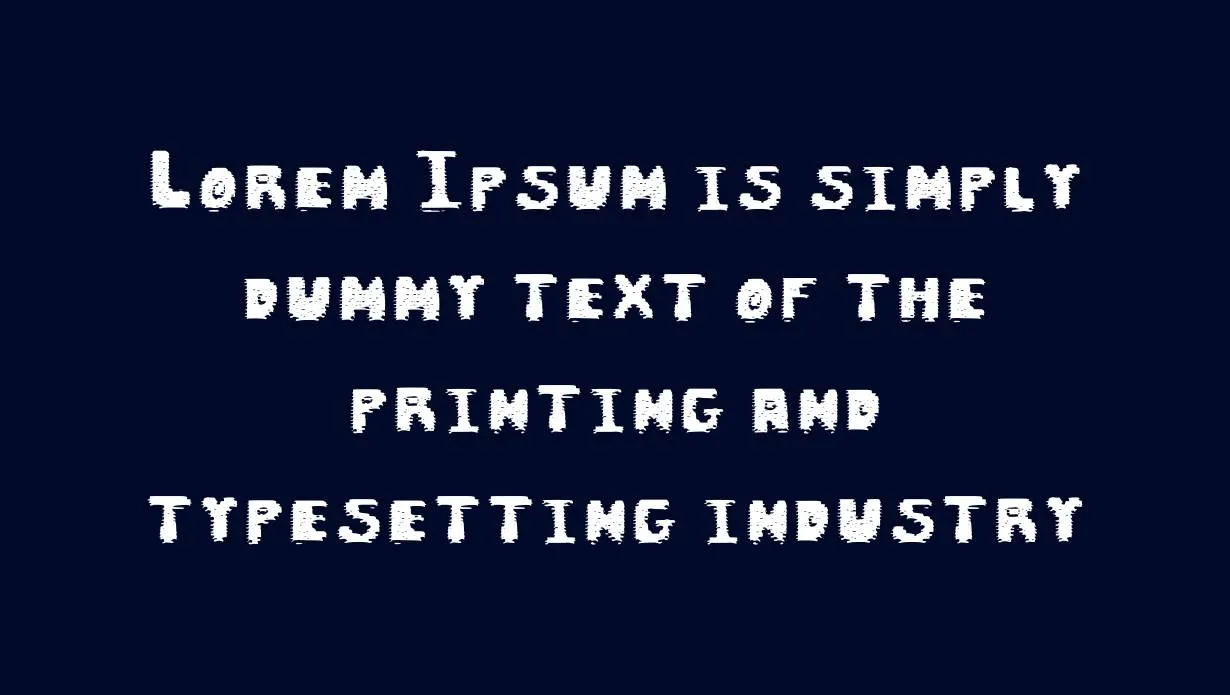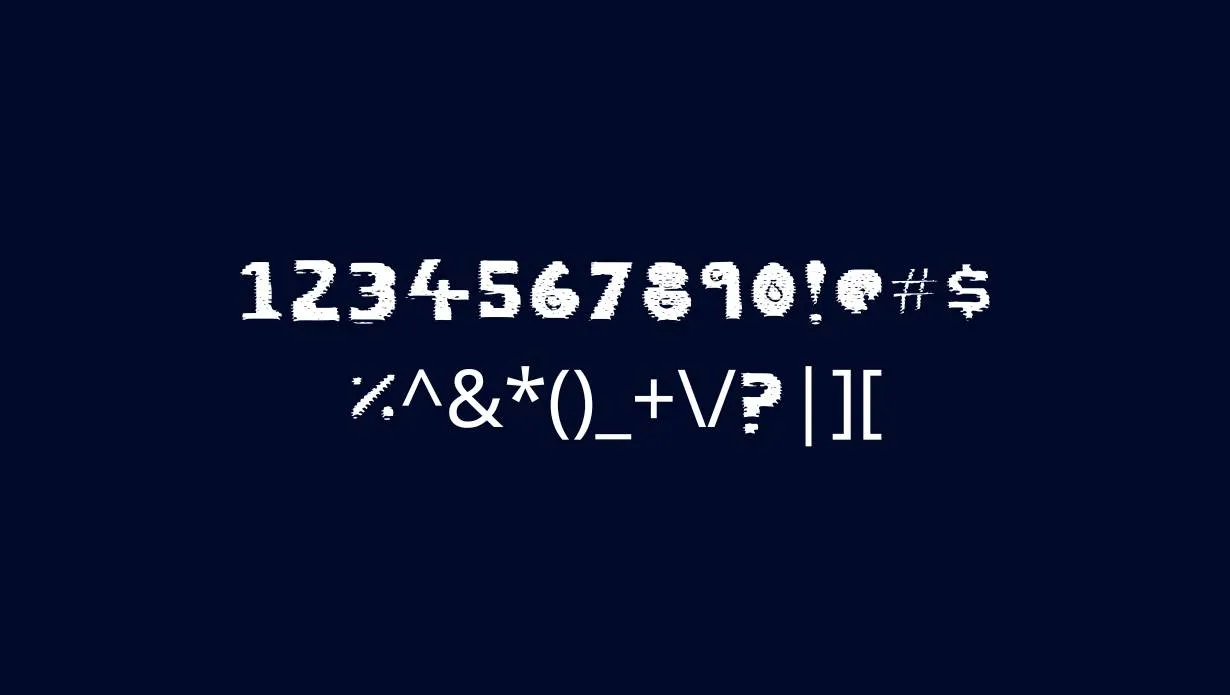
Today we’re going to present another stylish and fuzzy font style known as the “BadTV Font”. This typeface belongs to the fancy font family created by an unknown designer along with only style.
BadTV Font Family